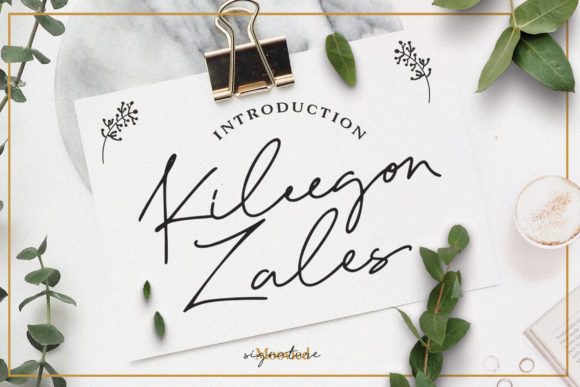
Kileegon Zales Font
Meet Kileegon Zales, a delightful handwritten font that will add a touch of whimsy to your next project. Its elegant curves and playful personality make it perfect for invitations, logos, and any project that needs a personal touch.
With its graceful strokes and warm undertones, Kileegon Zales embodies the essence of light and warmth. It's the perfect font for creating a sense of intimacy and connection in your designs.
Kileegon Zales is a versatile font that can be dressed up or down to suit any occasion. Use it to add a touch of elegance to a formal invitation, or create a playful and inviting logo for your business. No matter how you use it, Kileegon Zales is sure to make your project stand out.